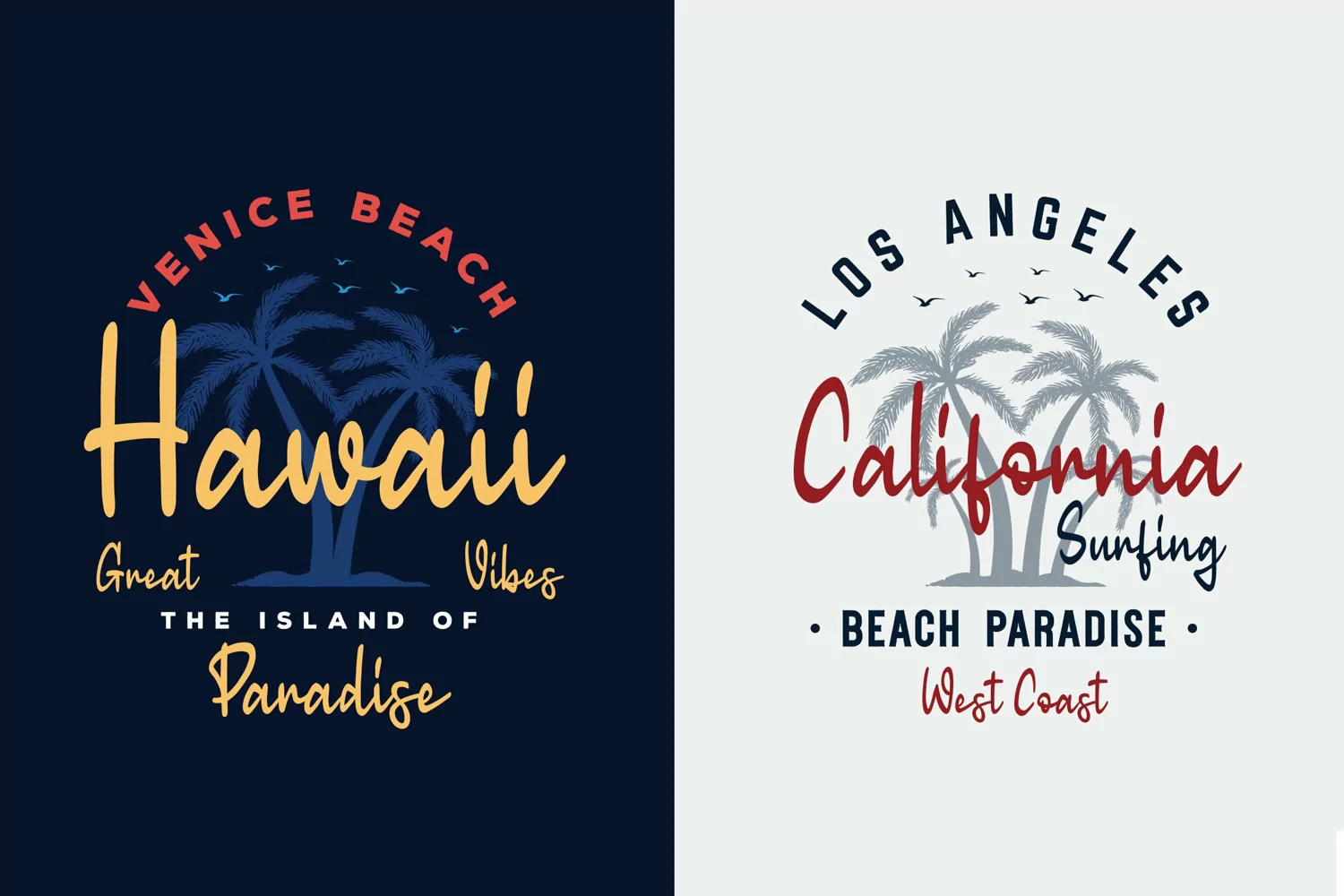
Introducing of our new product the name is Retro Sign. Retro Sign inspired by retro signature style this font is a fun theme very good for display, wedding, valentine theme, logotype and etc